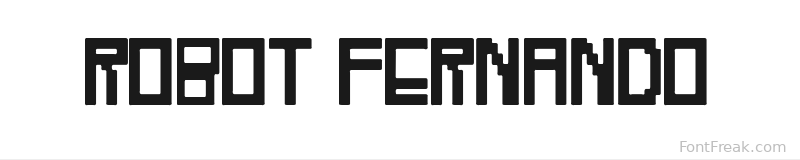
Robot Fernando
Robot Fernando is a unique display font designed by woodcutter Manero, categorized under decorative fonts. With its bold, geometric shapes and block-like letters, this font captures an industrial essence that is both modern and playful. The stroke weight is consistent, creating a sturdy appearance, while the slight contrast in certain characters adds a touch of personality. The overall spacing is well-balanced, ensuring readability while maintaining a striking visual impact.
This font is particularly well-suited for a variety of creative applications. It can be effectively used for eye-catching movie posters that demand attention, as the bold letterforms stand out against vibrant backgrounds. Additionally, Robot Fernando can enhance brand identity for tech startups, giving logos a contemporary edge. Restaurant menus can also benefit from this font, adding a fun, modern twist to food descriptions. For digital content creators, this font offers a distinctive choice for social media graphics and promotional materials, helping to convey a unique brand voice.
What truly sets the Robot Fernando font apart is its ability to blend modern design with an approachable feel, making it versatile for various projects. Whether you're creating an engaging advertisement, a vibrant website, or a bold poster, this font adds a layer of intrigue that captures attention. Don't miss the chance to elevate your design work with the Robot Fernando font free download, a perfect choice for those seeking a distinctive and memorable typeface.